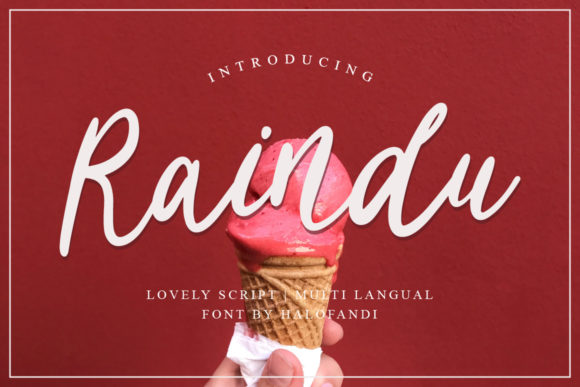
Raindu Font
Step into the enchanting world of Raindu, a captivating handwritten font that will transform your designs into breathtaking masterpieces. Immerse yourself in its rustic charm and let your imagination soar with its undeniable style and versatility.
Raindu's alluring strokes evoke the warmth and nostalgia of a bygone era, effortlessly captivating your audience with its timeless appeal. Whether you're crafting elegant wedding invitations, designing enchanting posters, or creating enchanting branding that lingers in the hearts of your clients, Raindu will effortlessly elevate your creations.
Indulge in the limitless creative possibilities that await you with Raindu. Its versatility knows no bounds, adapting seamlessly to a myriad of design projects. From whimsical logos and charming social media posts to eye-catching headlines and heartwarming greeting cards, Raindu will effortlessly elevate your designs, leaving an unforgettable mark on your audience.
Unleash your inner artist and embrace the boundless possibilities that Raindu holds. Let its unique and stylish charm ignite your creativity and transform your designs into works of art. Fall head over heels in love with its enchanting beauty and experience the joy of creating designs that resonate deep within the souls of your audience.
With Raindu by your side, you'll embark on a creative journey where inspiration flows effortlessly and your designs blossom into enchanting masterpieces. Its versatility will empower you to explore uncharted creative territories, leaving a lasting impression on all who encounter your creations.